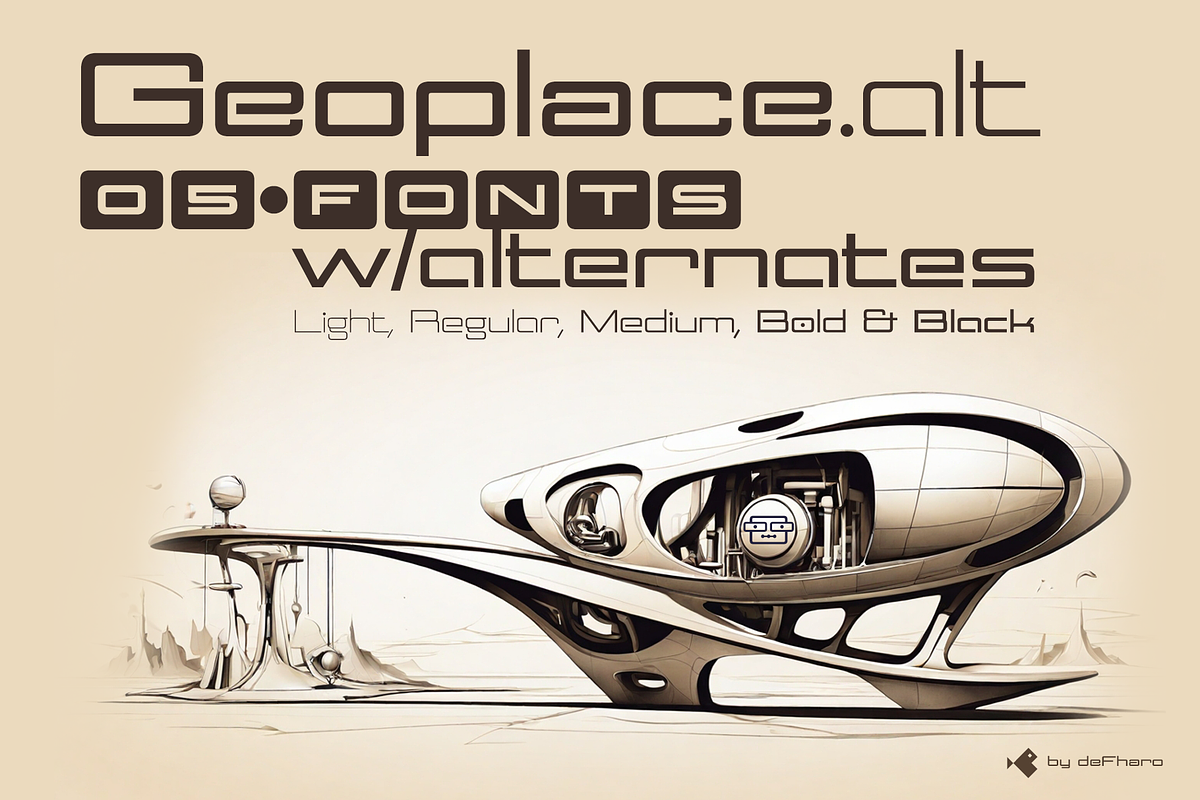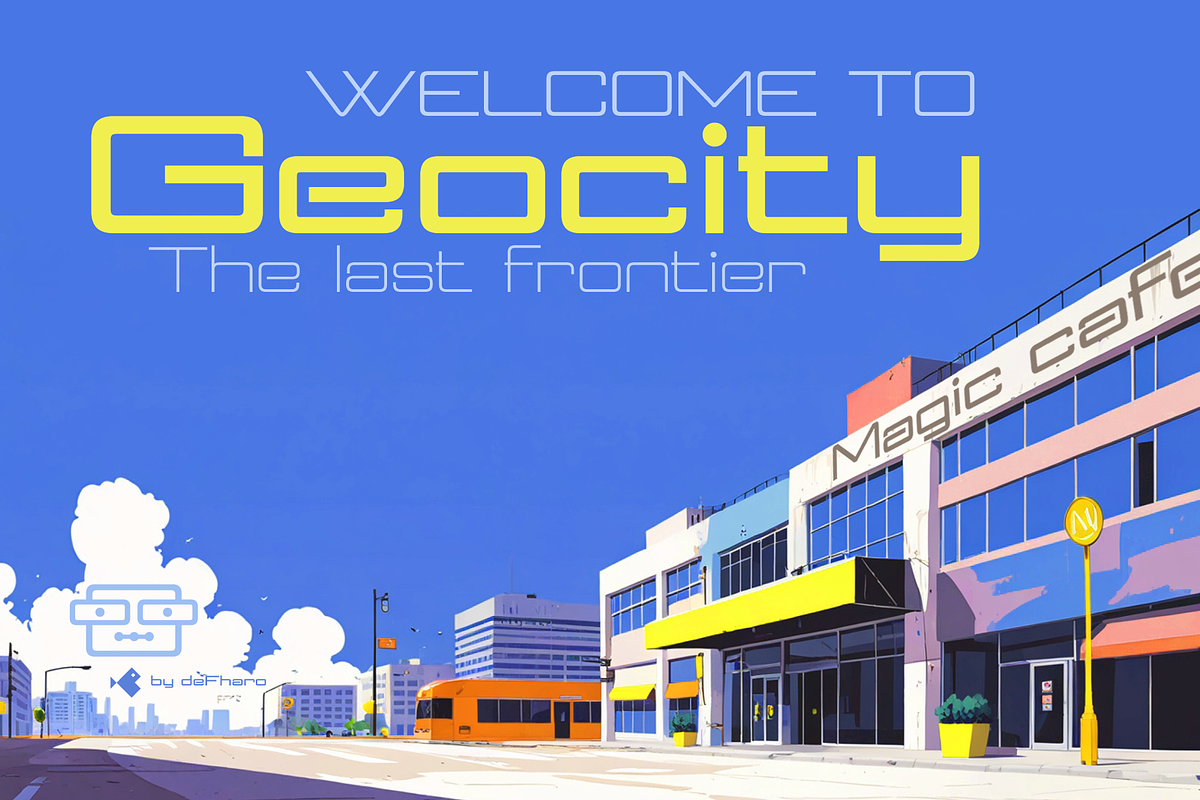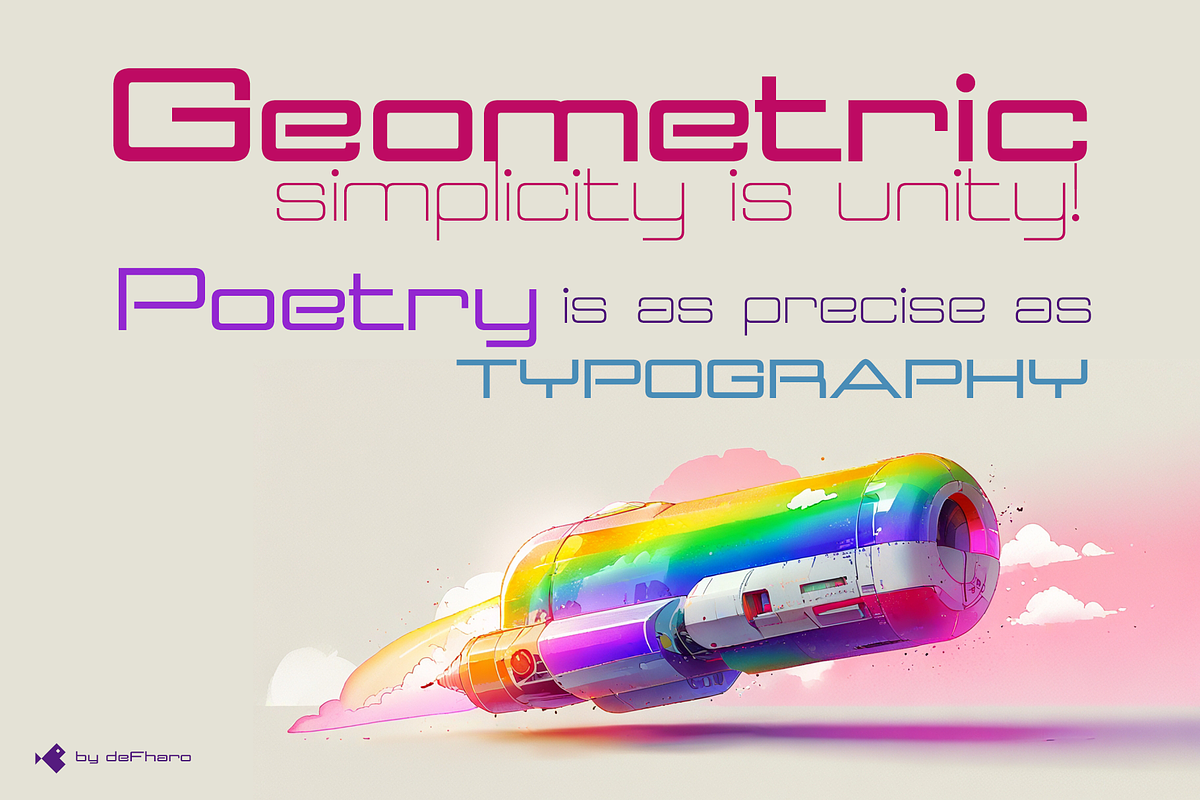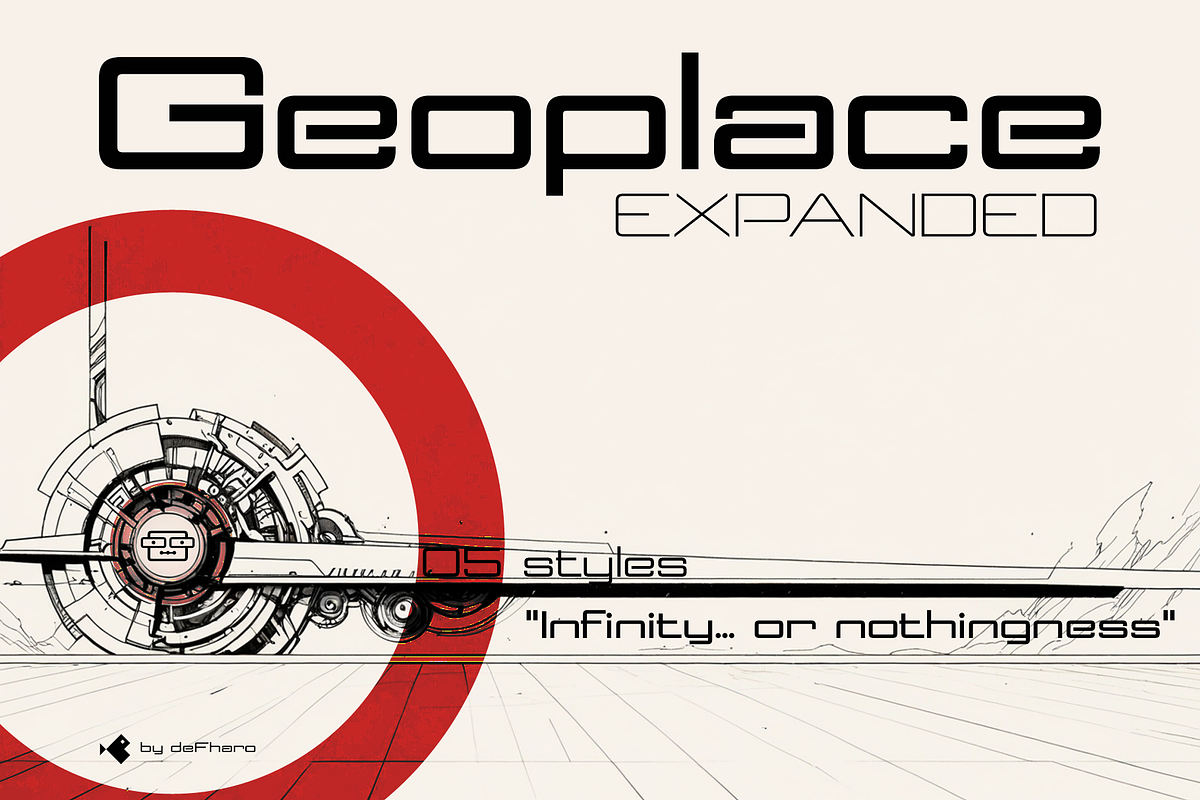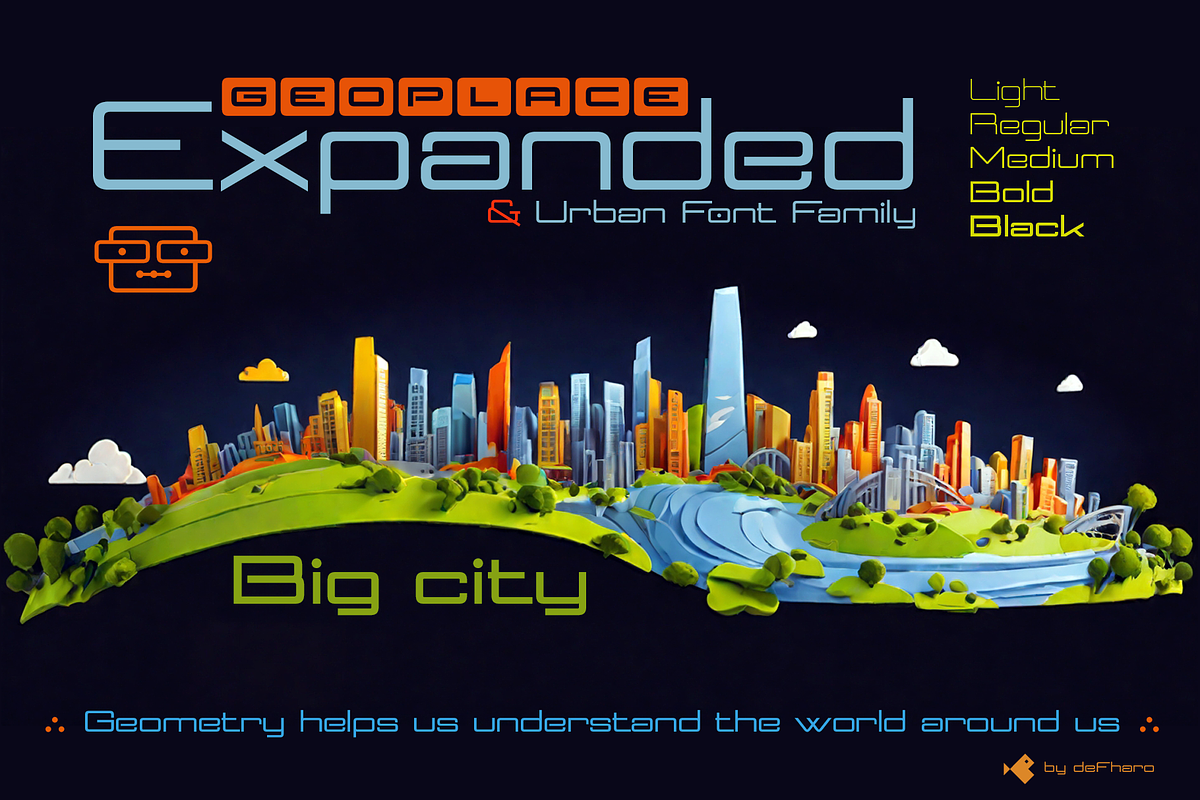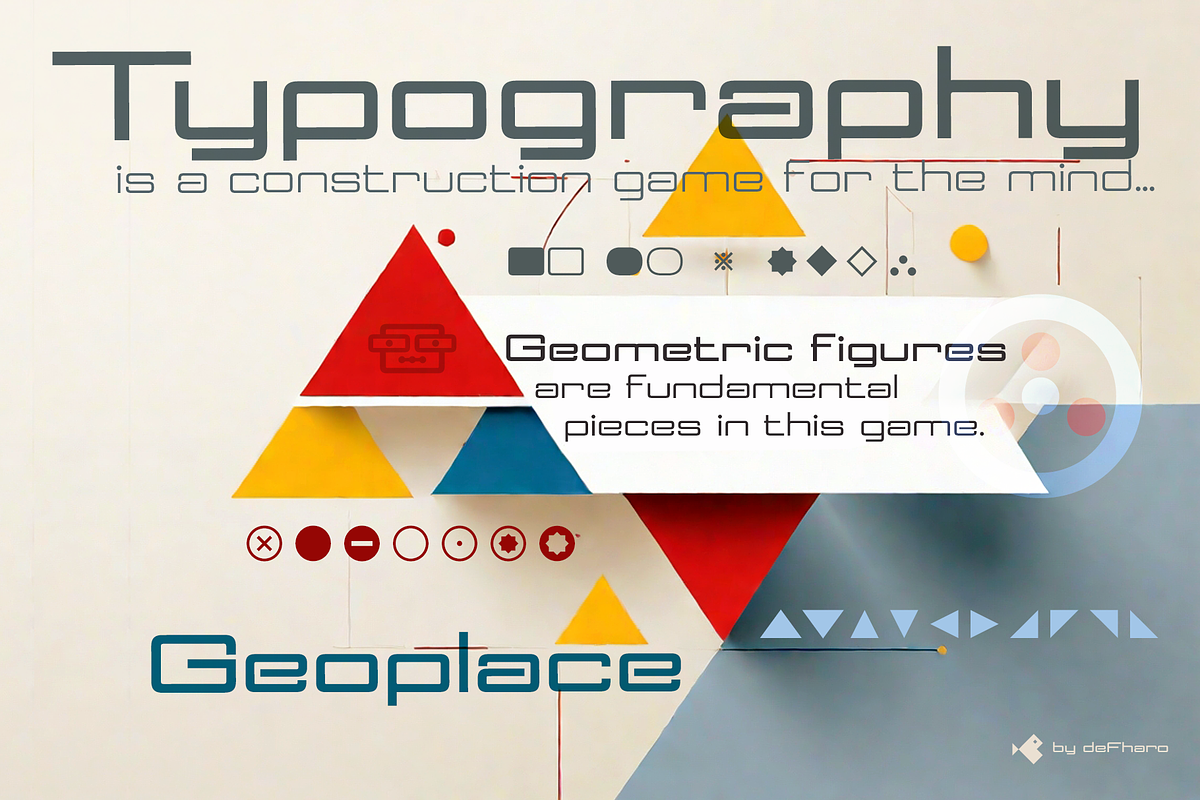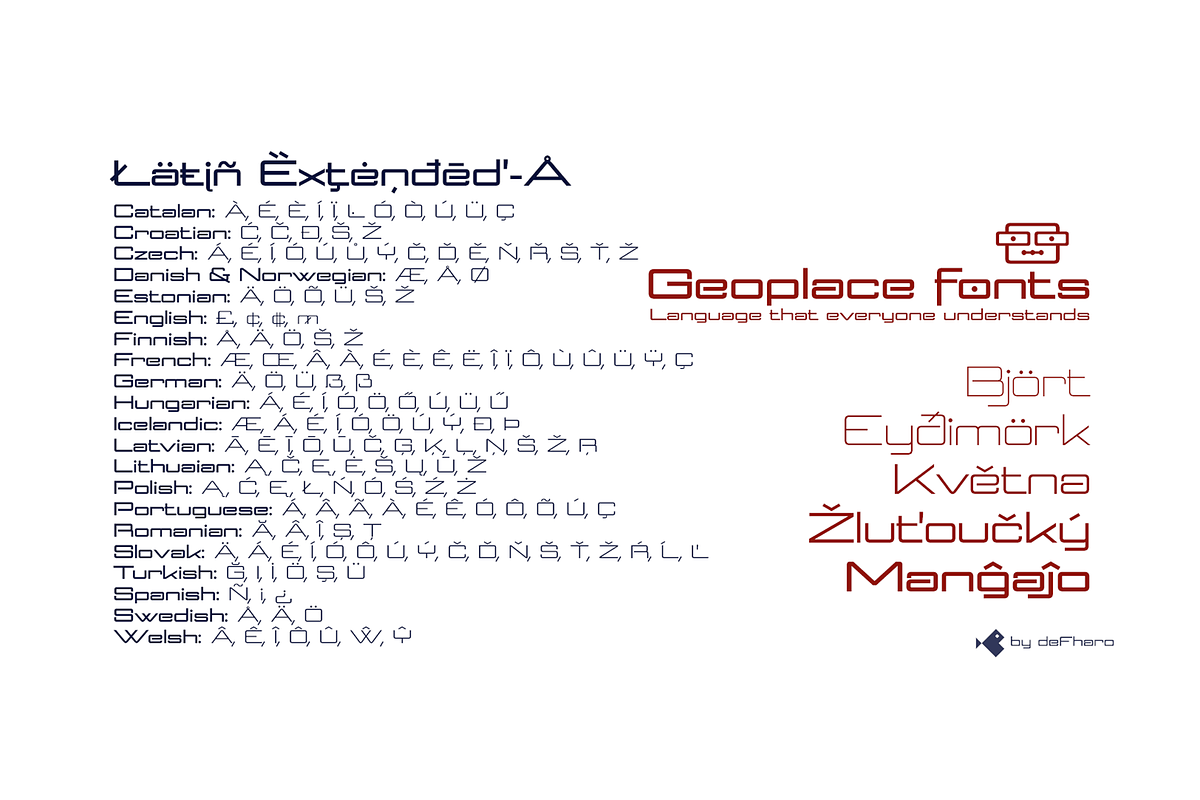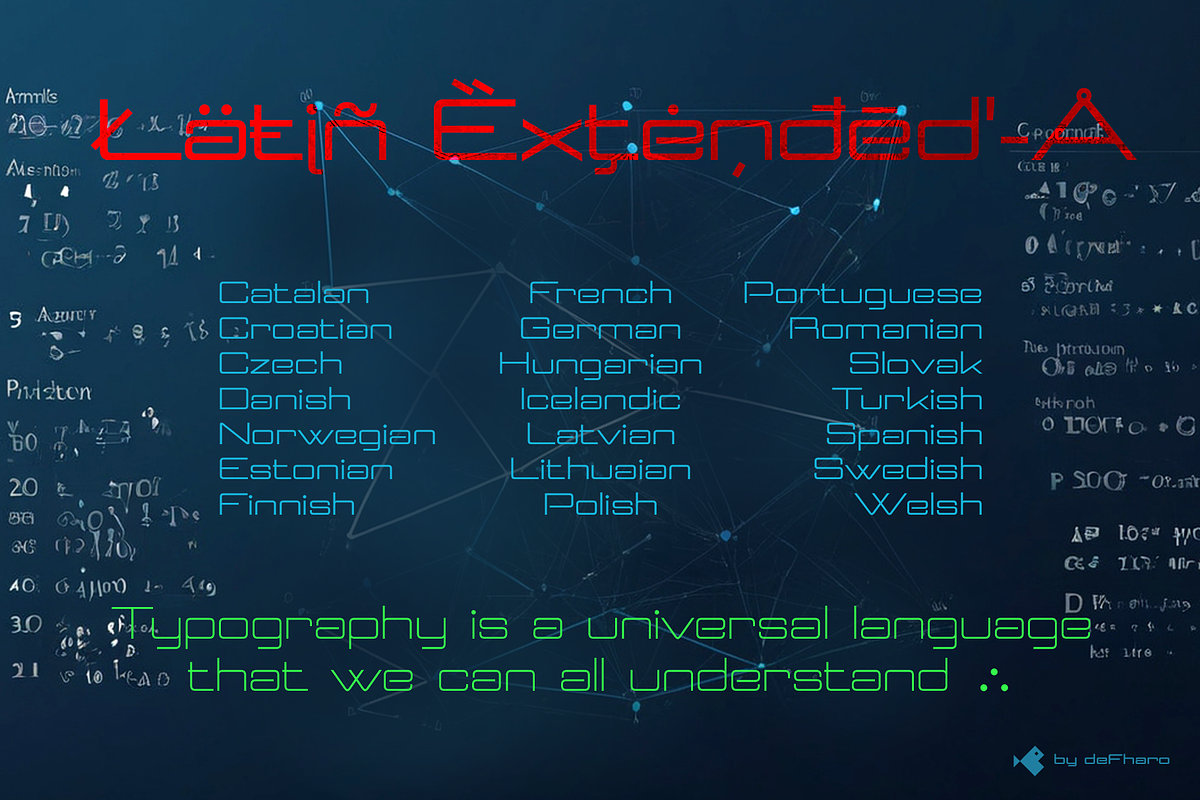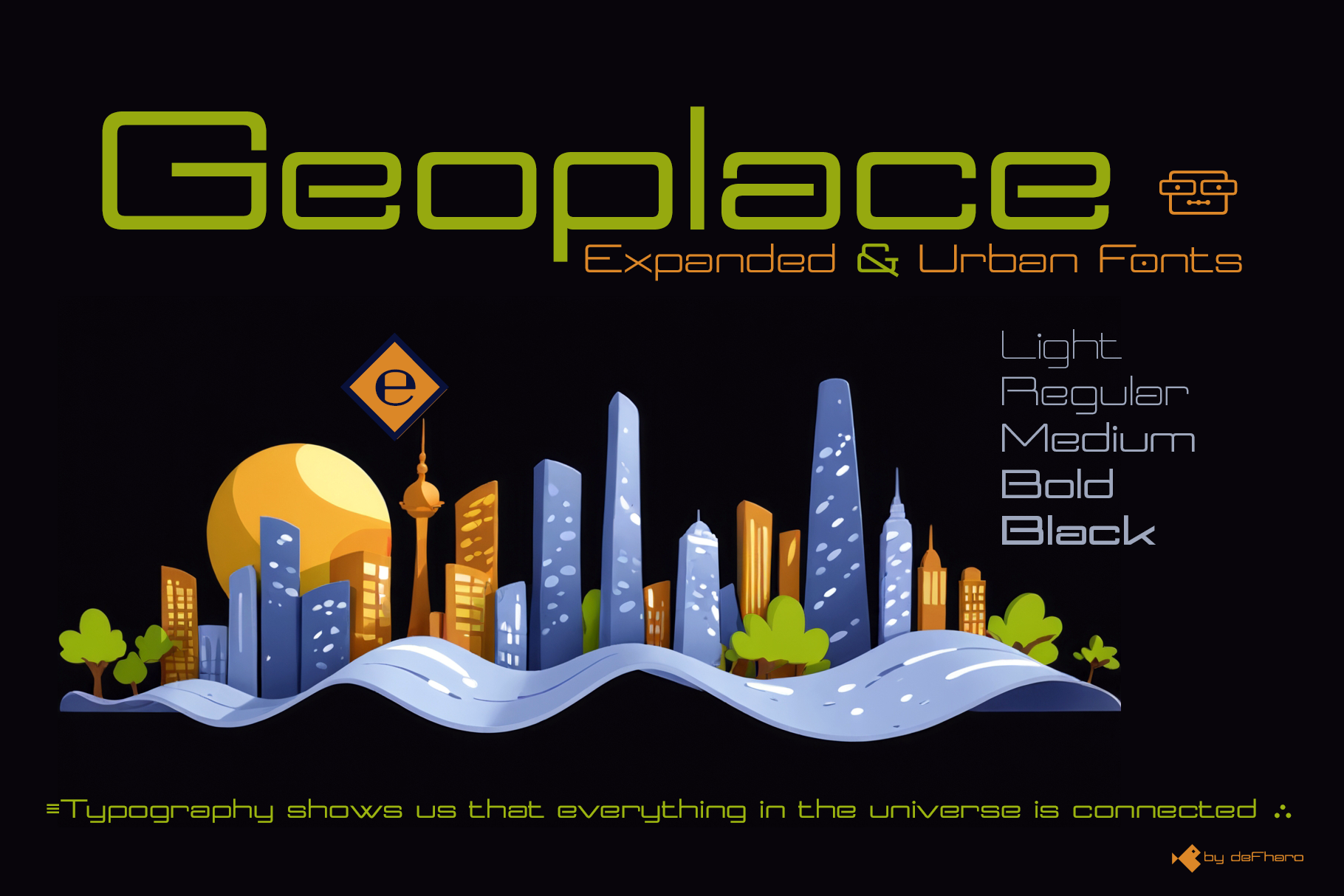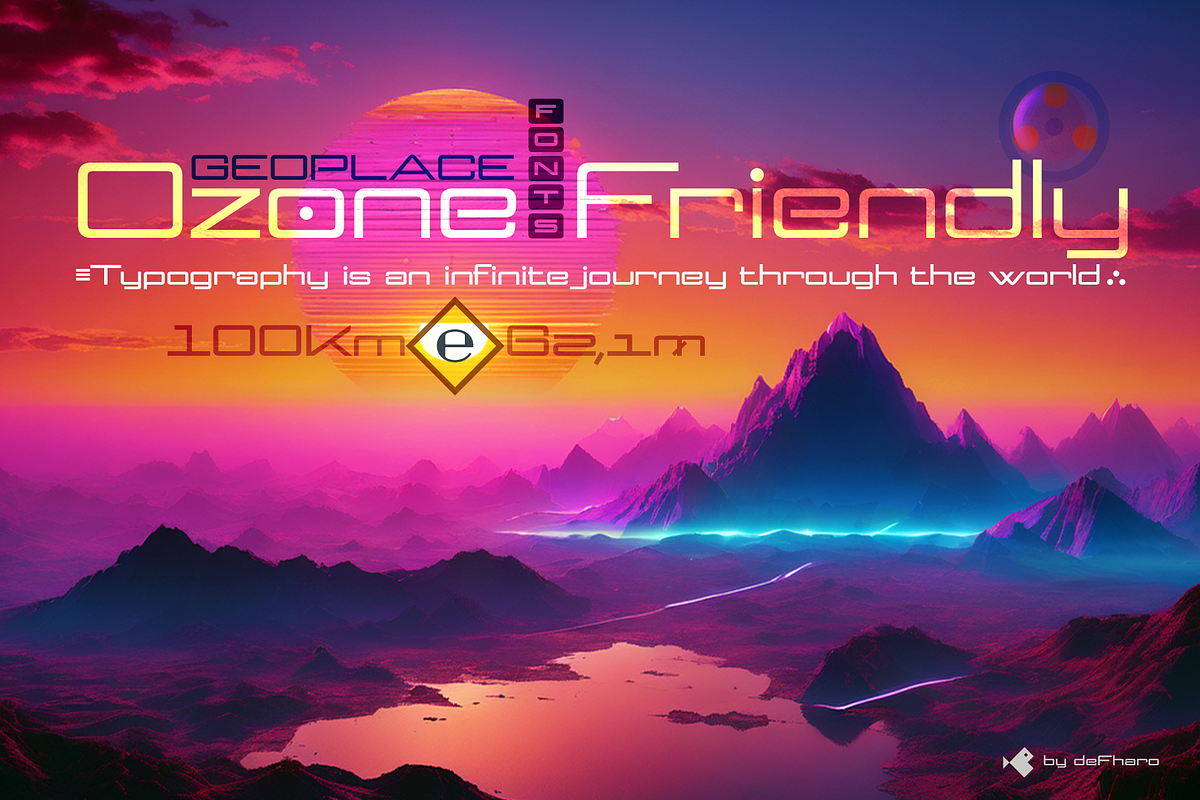
Geoplace Expanded -05 fonts
An expanded-proportioned sans serif type family, infused with a futuristic urban style and technological inspiration, reflecting my passion for design and geometric precision to achieve a unique aesthetic and exceptional legibility in any size and context.
Meticulous Design and Typographic Perfection
Every curve and angle of these typefaces has been painstakingly sculpted with millimetric precision, seeking an aesthetic that mirrors the modernity and dynamism of urban environments. The expanded proportion adds a sense of breadth, clarity, and contemporary elegance. Experimenting with various shapes, proportions, and details is essential to achieving a unique and coherent aesthetic.
Functional and Aesthetic Versatility
Geoplace is not only visually appealing but also highly functional and versatile. With five distinct weights—ranging from fine and elegant to robust and impactful—an array of advanced OpenType features, alternate letter and number sets, as well as a wide range of symbols, this type family provides a comprehensive tool for any creative project, encompassing a total of 847 glyphs.
Geoplace includes a complete character set (Latin Extended-A) that supports any European Latin-based language, making it ideal for multilingual projects.
From modern, elegant logos that forge unique brand identities to striking posters or informative brochures, this typeface contributes a contemporary and distinctive aesthetic. Whether on billboards, print ads, or editorial design, its exceptional legibility ensures that the message resonates with the target audience in a powerful and memorable way. Its urban, modern style adds a touch of sophistication and freshness to any advertising campaign, enhancing brand presence and creating a greater visual impact.
🔻Geoplace roman expanded: 05 fonts
Light, Regular, Medium, Bold & Black
845 glyphs. Latin Extended-A. 191 alternates.
Geoplace fonts includes the symbol of Bitcoin and currency symbols.
OpenType Features: Additional languages, Petite Caps, All Alternates, Bitcoin, Capital Spacing, Contextual Alternates, Denominators, Discretionary Ligatures, Fractions, Historical Forms, Inferiors, Kerning, Localized Forms, Numbers Small Caps, Numerators, Oldstyle Figures, Ordinals, Scientific Inferiors, Slashed Zero, Standard Ligatures, Stylistic Set, Subscript, Superior letters, Superiors, Superscript, Titling alternates.